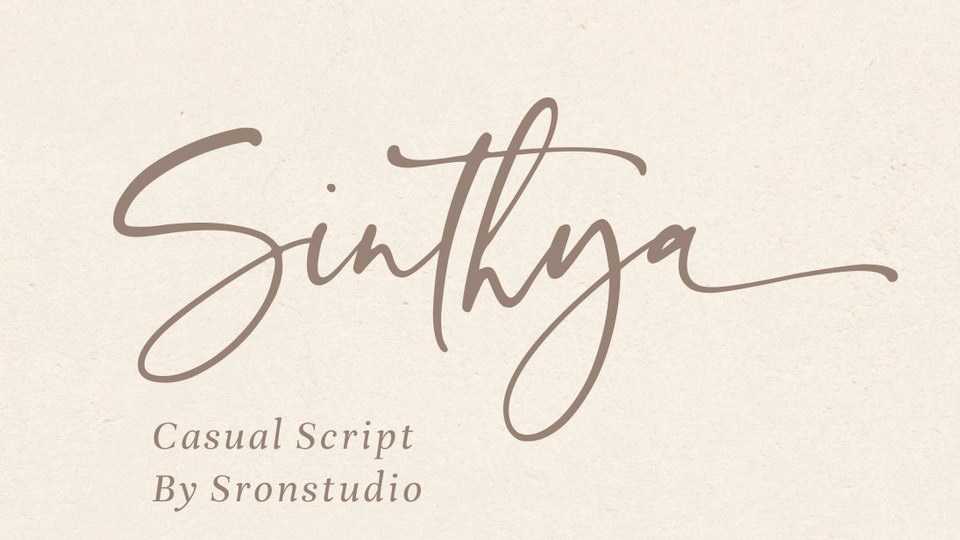
Download Sinthya font, a casual natural handwritten script . Sinthya script is perfect for personal branding, invitation, stationery, wedding designs, social media posts, advertisements, label, photography, watermark, special events or anything.
Designer: Sronstudio